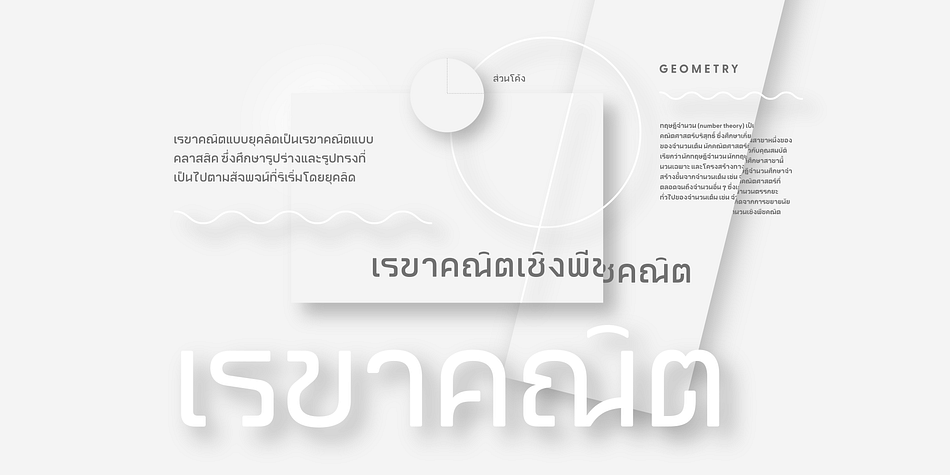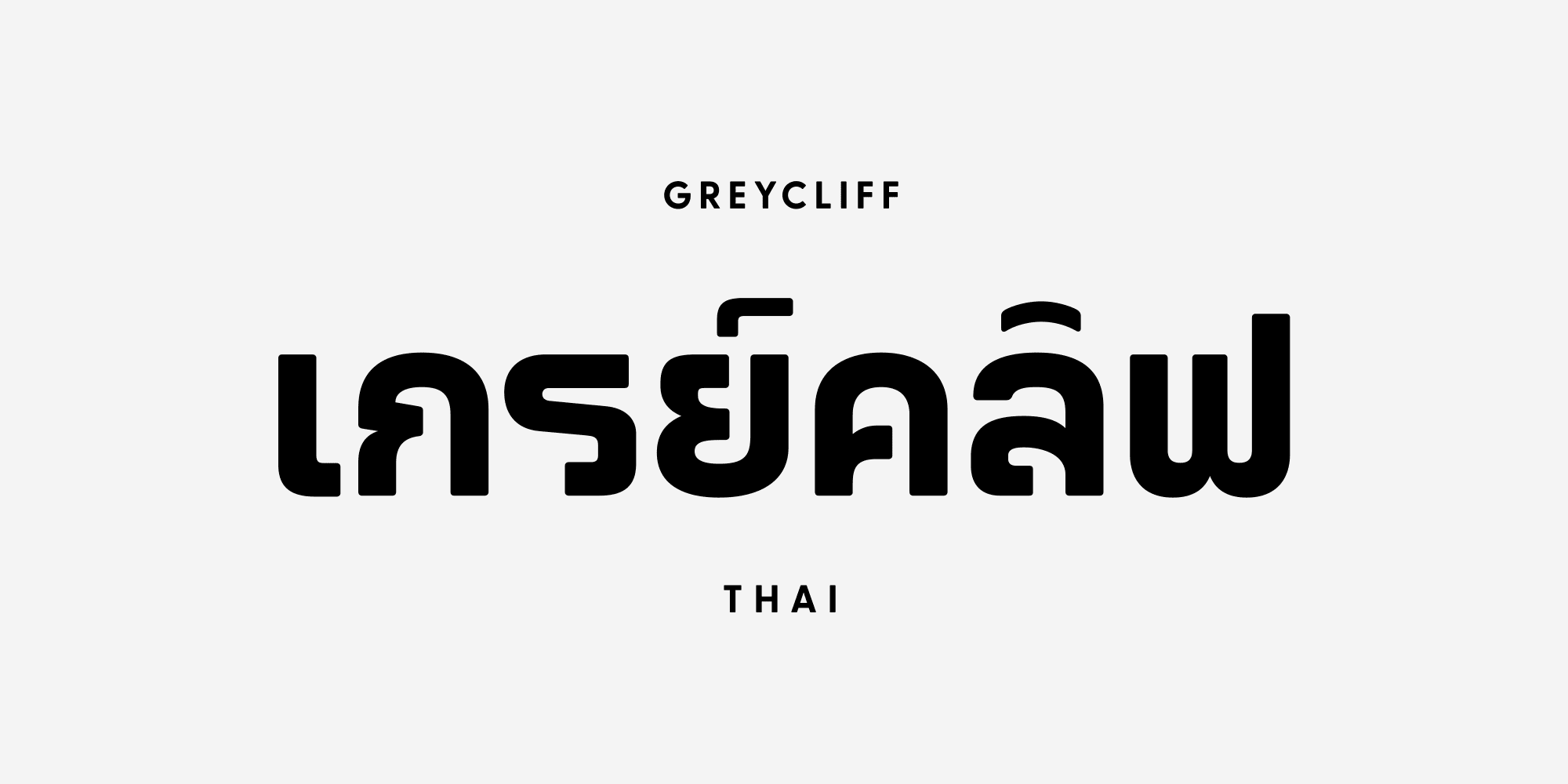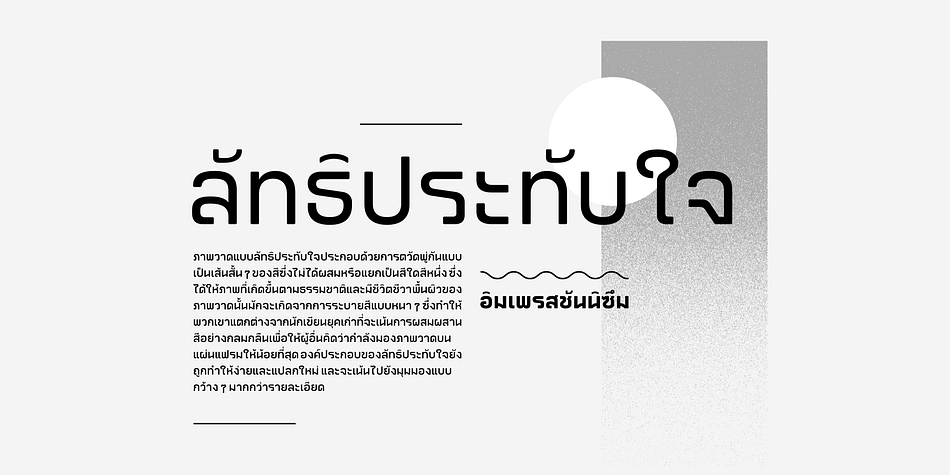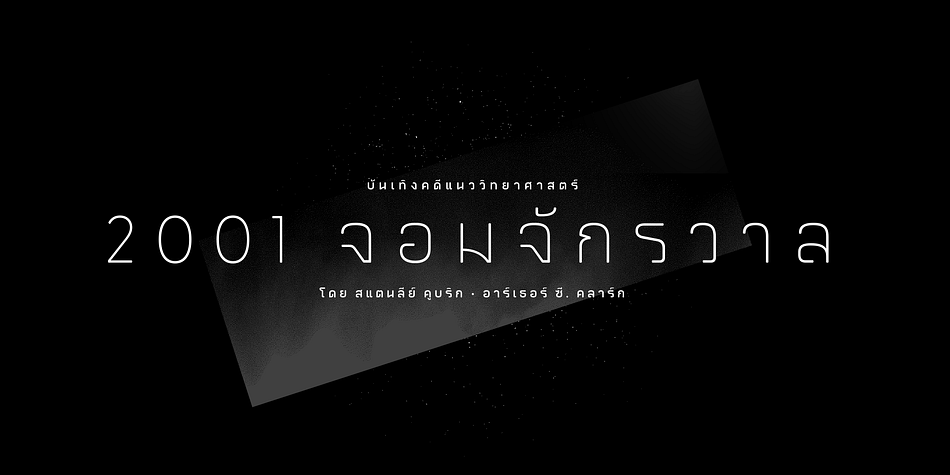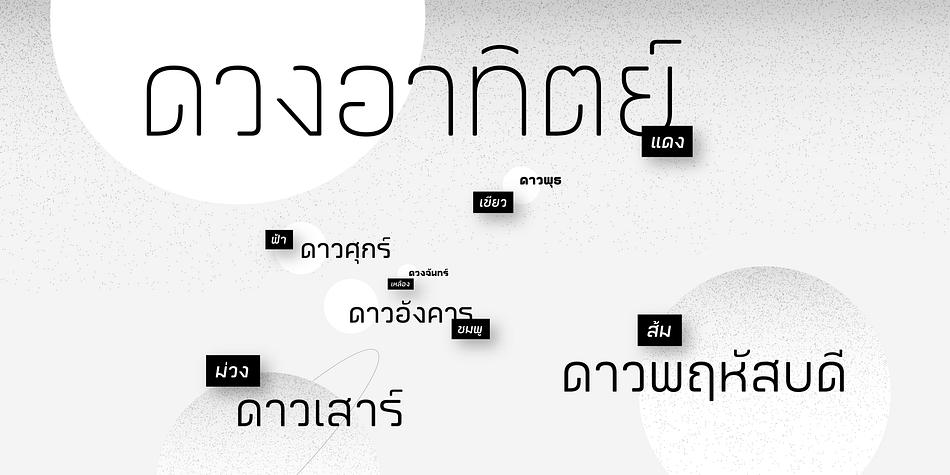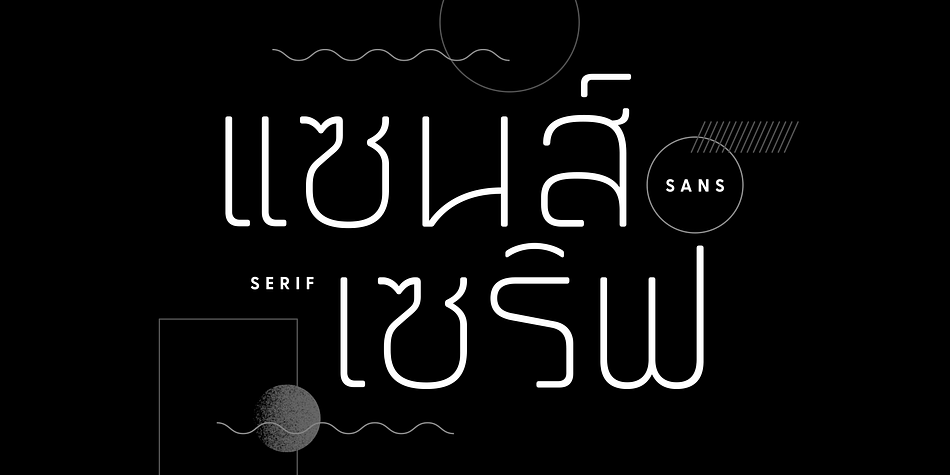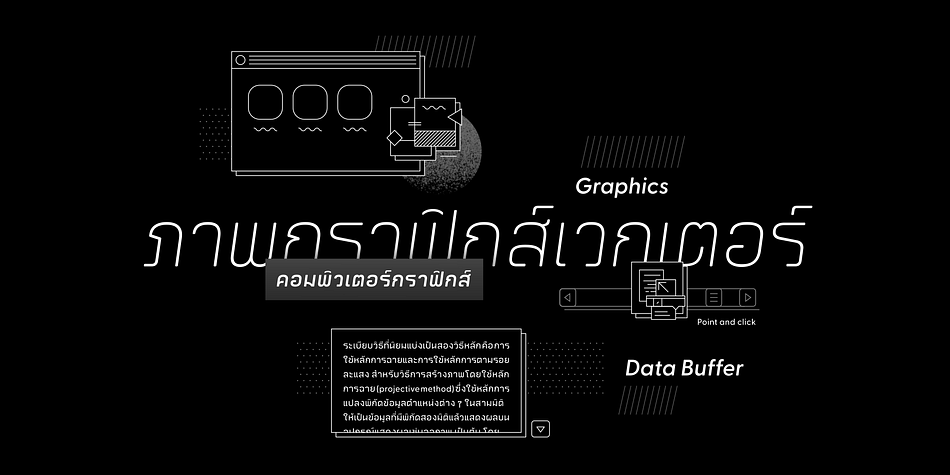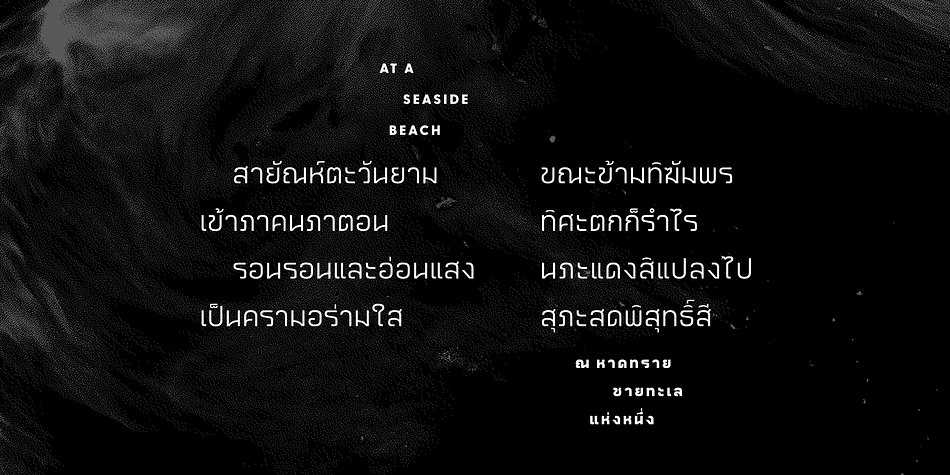
Designed by Connary Fagen, Greycliff Thai CF is a sans serif font family. This typeface has eighteen styles and was published by Connary Fagen Type Design.
Greycliff Thai CF adapts Greycliff’s popular soft, geometric design to the Thai script. Both Latin and Thai glyphs are included, allowing for cohesive multiple-script applications. Greycliff Thai CF includes nine weights, obliques, and full Thai diacritics.
Greycliff Thai CF works as a complete, self-contained type system, with both Latin and Thai scripts included and designed to compliment one another.